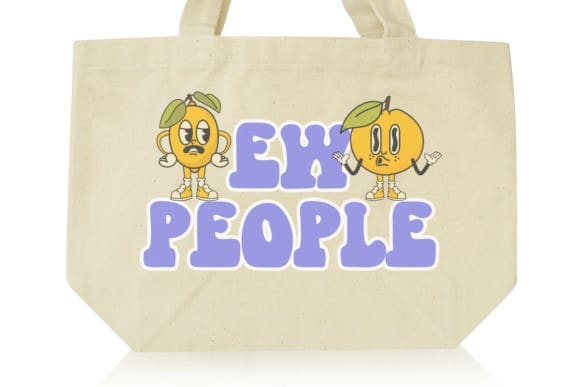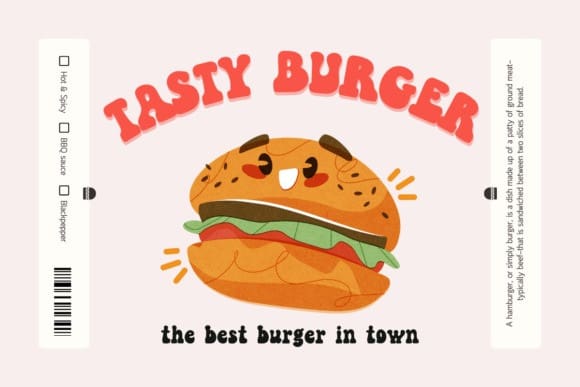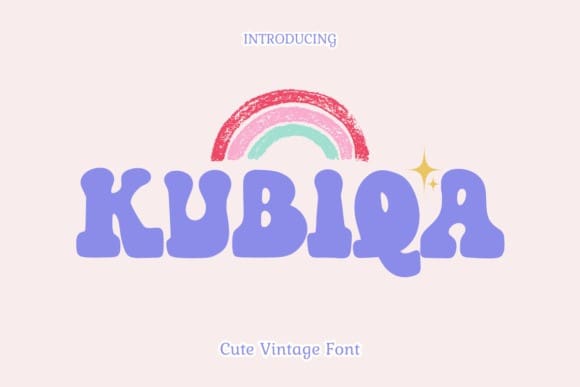
Kubiqa Display Font
Kubiqa Display Font is a fun and retro font, it’s perfect for designs that need a playful, cheery accent. Kubiqa is suitable for book covers, posters, packaging, merchandise, logotypes, and many more!